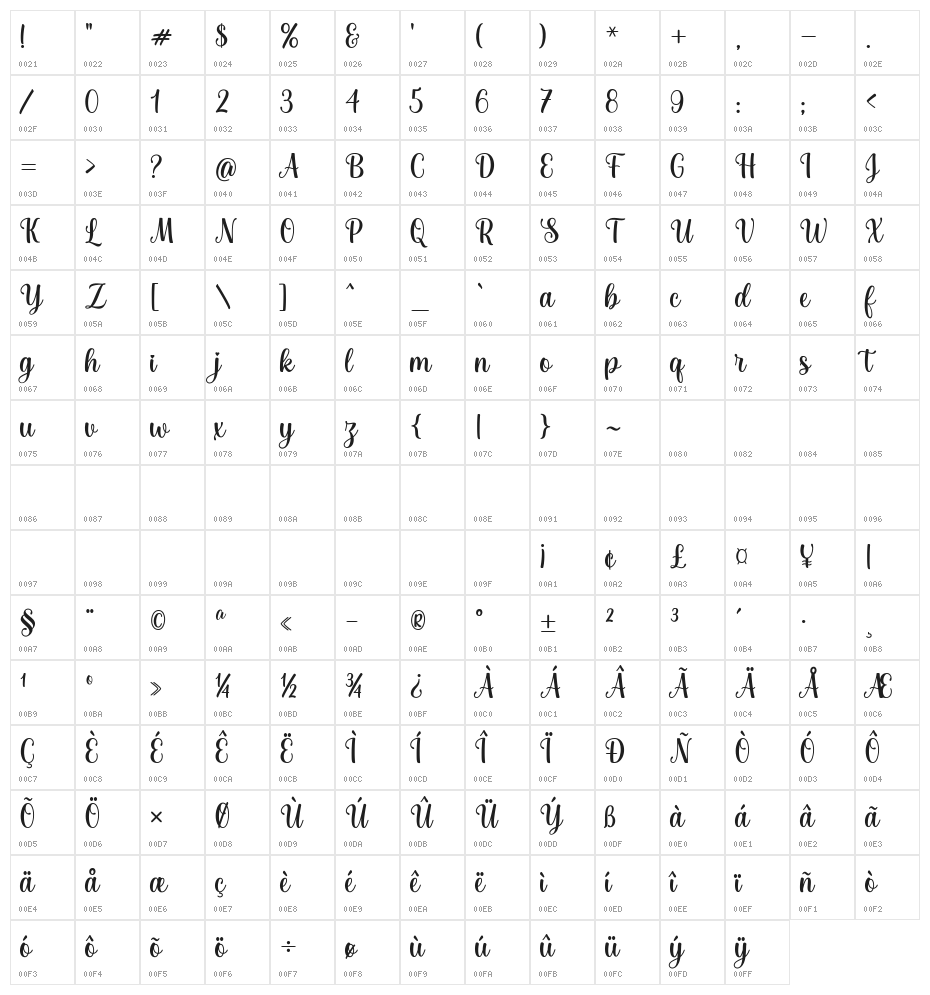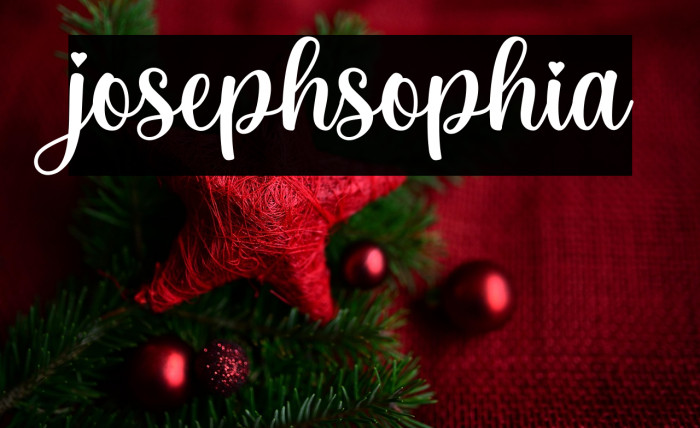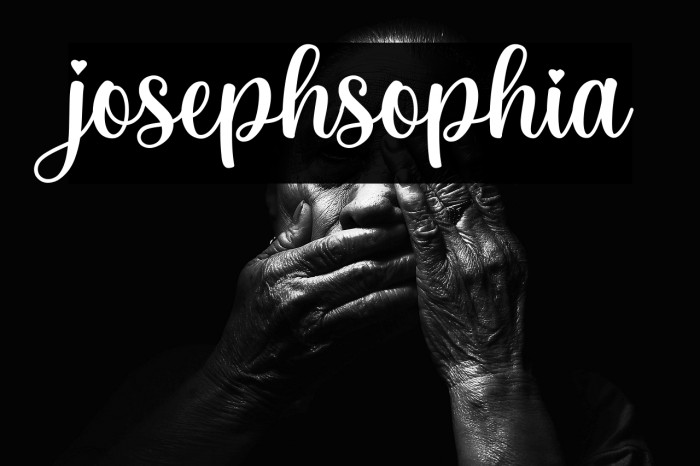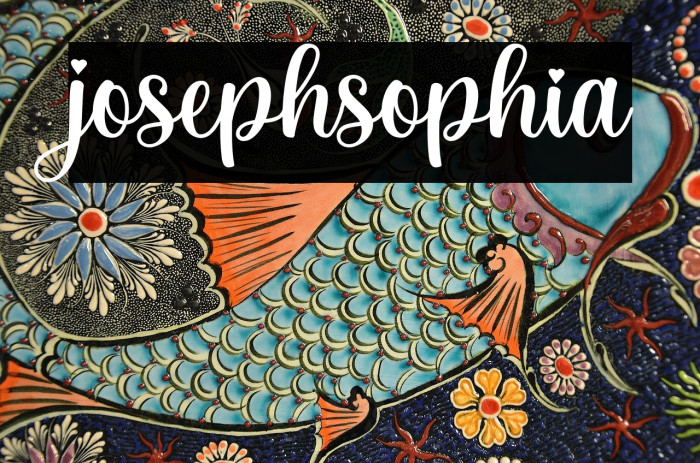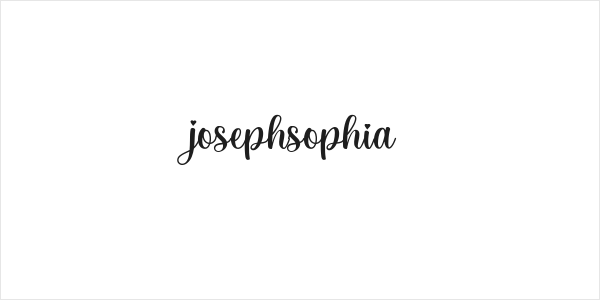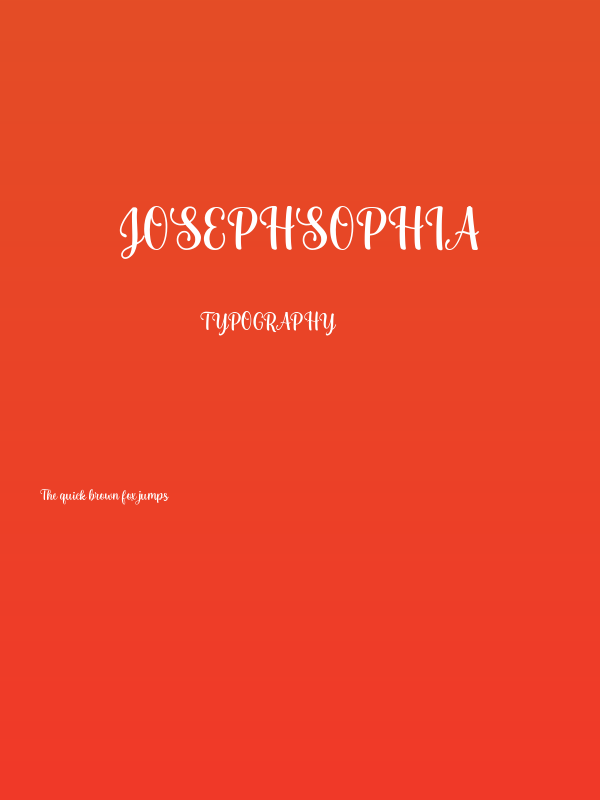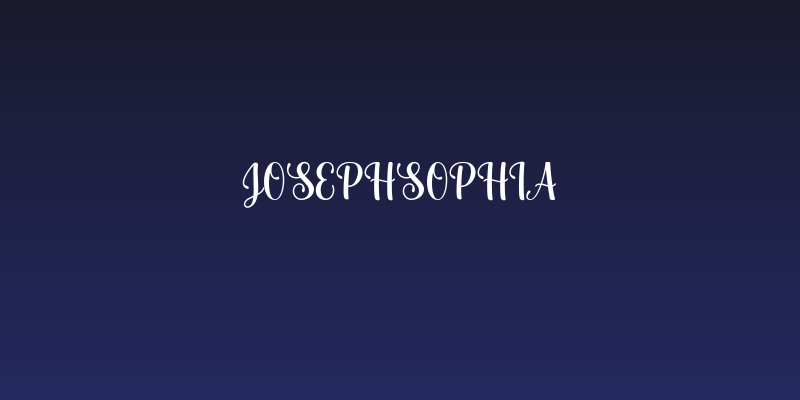
josephsophia Font
josephsophia Description
This font features a lively and elegant script style with a playful yet sophisticated flair. The uppercase letters are characterized by their flowing, cursive design, while the lowercase letters maintain a consistent, smooth connection between characters. The numerals are bold and slightly rounded, complementing the overall aesthetic. Special characters are crafted with the same attention to detail, ensuring a cohesive look across all glyphs. The font's design is both modern and timeless, making it versatile for various applications.
| Proposed Projects | Ideal for wedding invitations, greeting cards, branding projects, and elegant packaging designs. |